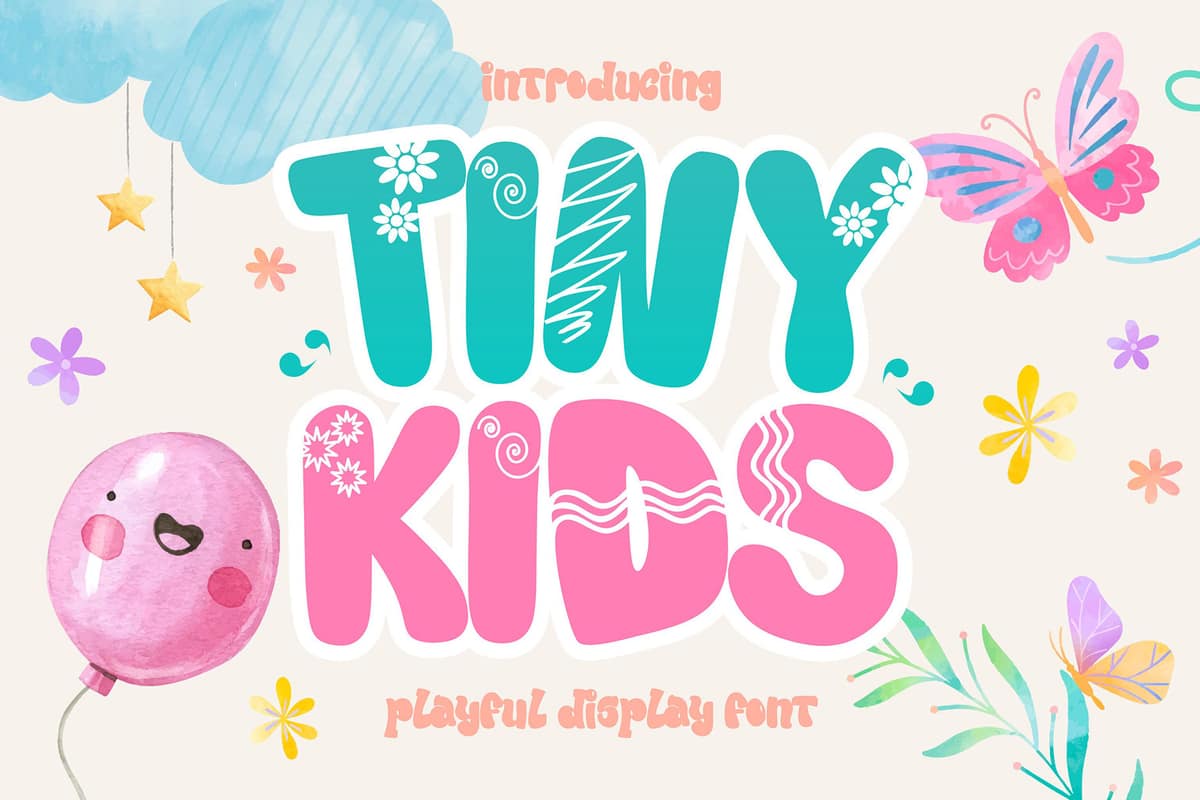
Tiny Kids
Tiny Kids is a delightful, playful display font bursting with charm and energy. With its cheerful curves and childlike spirit, it’s designed to bring fun and joy to any project, making it perfect for children's books, toy packaging, posters, and more!